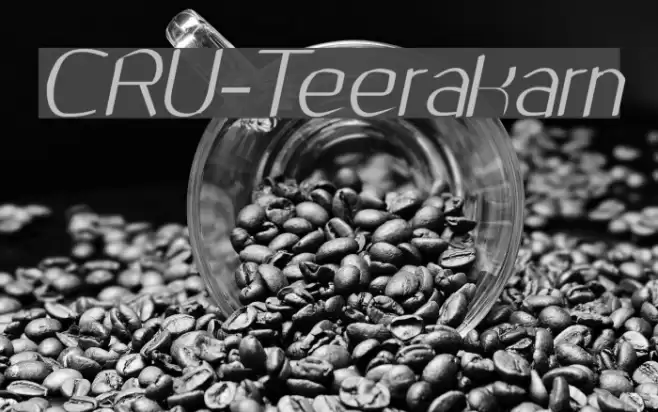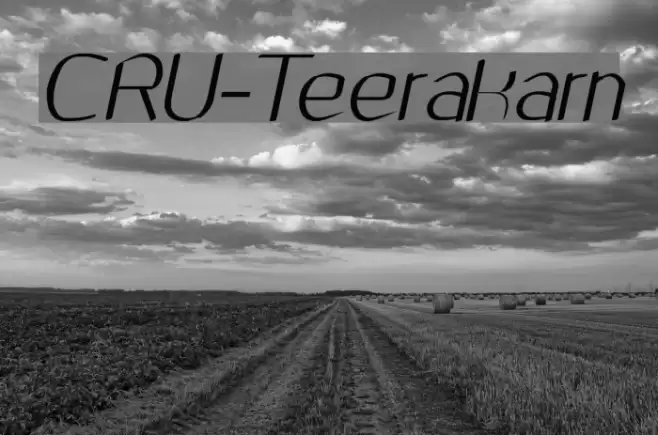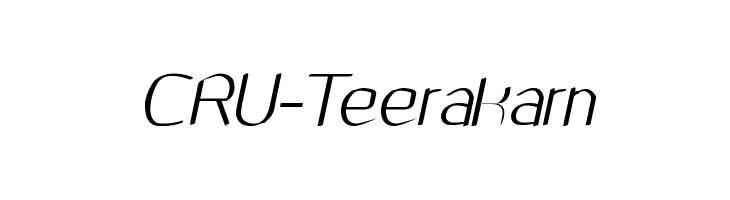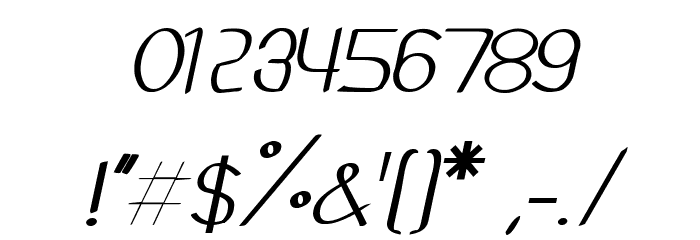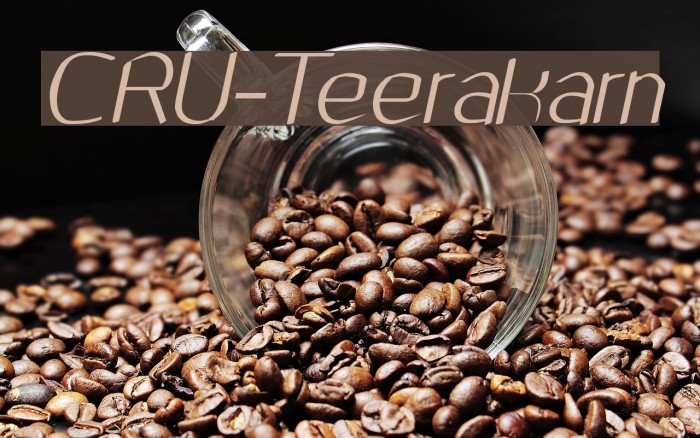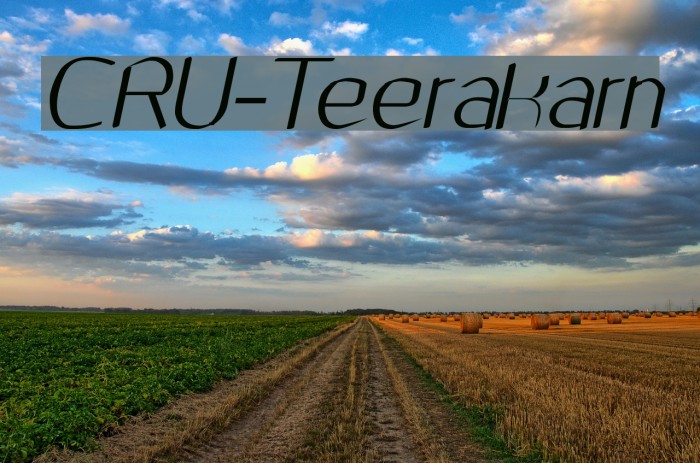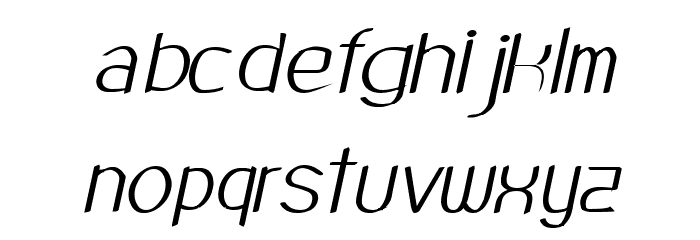
CRU-Teerakarn Font
CRU-Teerakarn Description
This font features a sleek, modern design with a slight slant, giving it a dynamic and forward-moving appearance. The characters are crafted with a consistent stroke width, providing a clean and uniform look. The uppercase letters have a distinctive style with rounded edges and subtle curves, while the lowercase letters maintain a similar aesthetic, ensuring readability and elegance. The numerals are designed to match the overall style, with a contemporary feel that complements the alphabet. Special characters are included, maintaining the same design principles, making this font versatile for various applications.
A sleek, modern font with a slight slant and consistent stroke width from Modern fonts.
- Proposed Projects: Ideal for branding, advertising, and digital media projects where a modern and dynamic look is desired.